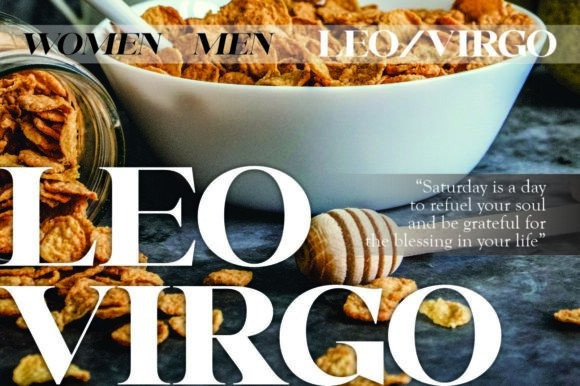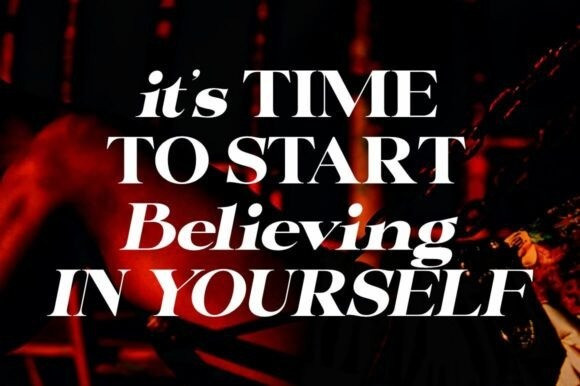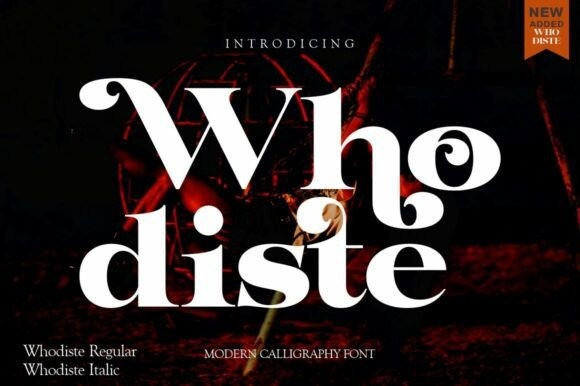
Whodiste Font
Whodiste Font, Inspired by the serif typefaces popular in print media. These typefaces are great for prominent use like logos and bold headlines due to their distinctive style. Their large x-height makes them great for tight initials in headlines.